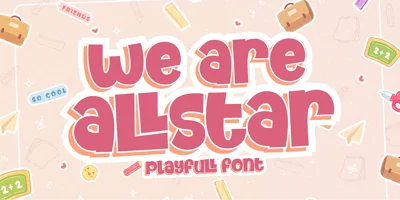
Allstar Font
Allstar Font is perfect for sports team branding, championship event posters, athletic award ceremonies, competitive gaming logos, star athlete endorsements, victory celebration materials, professional sports merchandise, and winning achievement marketing campaigns. This triumphant typeface excels in applications where athletic excellence and championship victory are essential.
What makes Allstar Font so exciting is its victorious ability to convey championship spirit and athletic excellence through bold, star-inspired letterforms that embody the glory of competitive achievement and the prestigious nature of being recognized as the best. The font features dynamic character shapes with championship influences and victory styling that evoke images of trophy ceremonies, stadium celebrations, and the electrifying moment when champions are crowned. Its achievement-focused design philosophy combines athletic authenticity with contemporary boldness, making it perfect for sports brands seeking to convey winning excellence, competitive supremacy, and connection to athletic communities and championship culture.
Allstar Font belongs to the athletic display font family, specifically designed for sports and championship-themed branding applications. This typeface family emphasizes victorious visual impact through star-inspired styling and championship character elements, ensuring authentic sports presentation across various athletic competition and victory celebration-focused design projects.
Achieve championship greatness with Allstar Font, a typeface that embodies the triumphant spirit of athletic excellence and championship victory. This winning font delivers exceptional energy for sports applications, featuring comprehensive character sets with championship symbols and victory punctuation marks that capture the essence of competitive achievement and athletic supremacy. Its dynamically crafted letterforms maintain excellent readability while preserving the authentic championship aesthetic across various sizes, from small team jerseys to massive stadium entrance displays. The font's distinctive victorious personality makes it invaluable for designers creating sports brands, athletic materials, and championship content where conveying excellence, victory, and competitive achievement is crucial for engaging sports enthusiasts and athletic communities seeking authentic championship experiences and inspiring, winning athletic performance recognition.